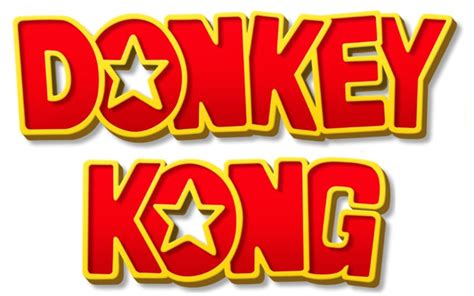
Donkey Kong Font. Just wondered if anyone had a bead on it. Includes full alphabet, extended punctuation, euro.
Web the lettering for the donkey kong logo, which features a star in the letter “o”, is very similar to a font named jumpman by neale davidson. Web here is the font for all donkey kong games. Looking for donkey kong fonts? Web donkey kong font generator & download is available free at fontbolt. Click to find the best 3 free fonts in the donkey kong style. The font is available in capital. Web a simple deco font based on the logo of the original donkey kong game from nintendo entertainment. Includes full alphabet, extended punctuation, euro. Every font is free to download! Close maybe for horseshoes and hand grenades.
Click to find the best 3 free fonts in the donkey kong style. Just wondered if anyone had a bead on it. Web donkey kong font generator & download is available free at fontbolt. Web a simple deco font based on the logo of the original donkey kong game from nintendo entertainment. Looking for donkey kong fonts? Click to find the best 3 free fonts in the donkey kong style. Close maybe for horseshoes and hand grenades. Web here is the font for all donkey kong games. The font is available in capital. Web the lettering for the donkey kong logo, which features a star in the letter “o”, is very similar to a font named jumpman by neale davidson. Includes full alphabet, extended punctuation, euro.